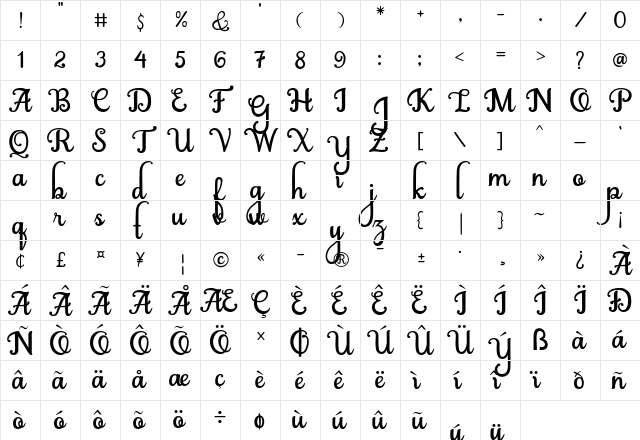
abiyells Regular
abiyells Family
Design Context for abiyells
abiyells is a composed and adaptable typeface that performs quietly and consistently across a wide range of design contexts.